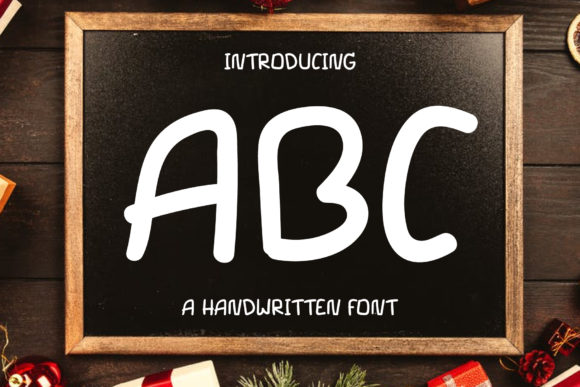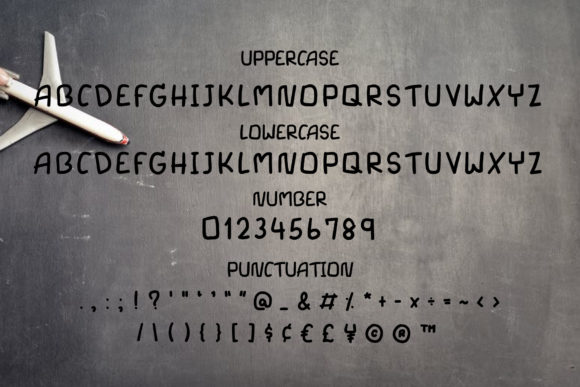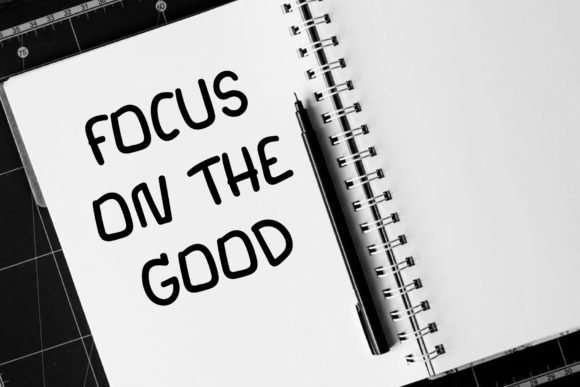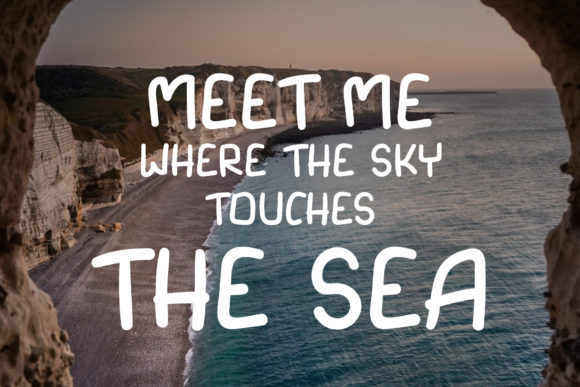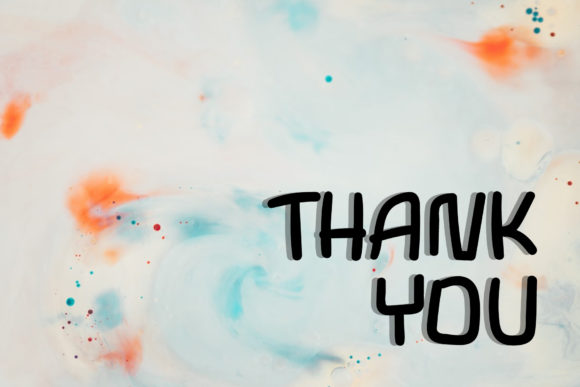
ABC is a cute and casual handwritten font. It is a bit sloppy, and as a result, it is the ideal choice for each of the projects related to children or school.